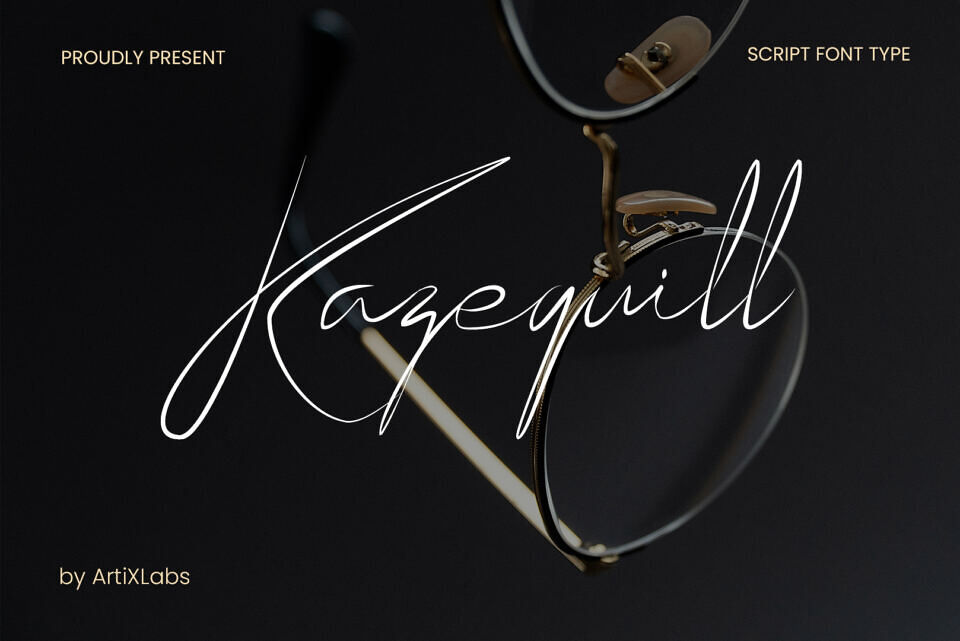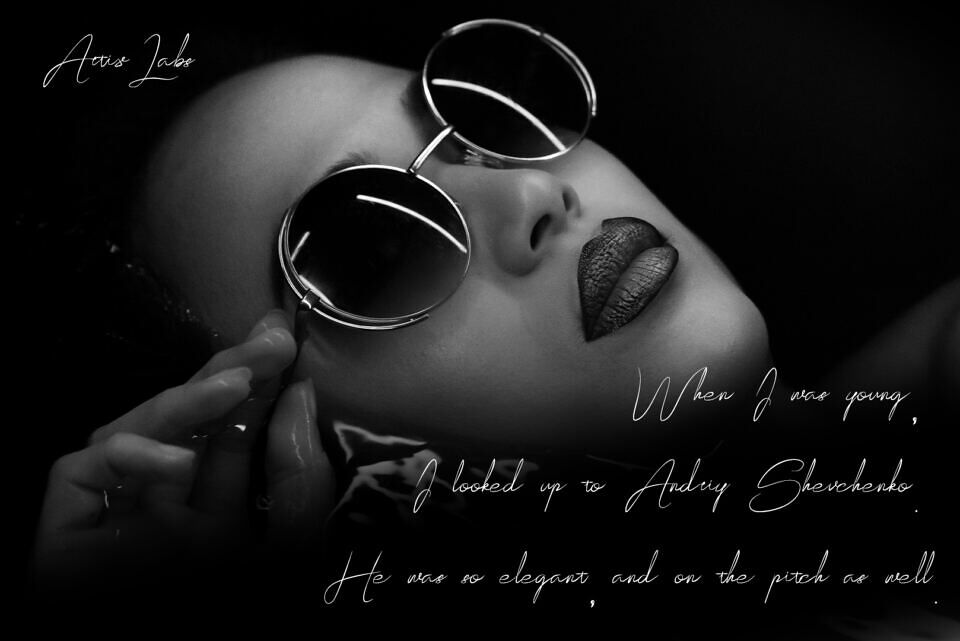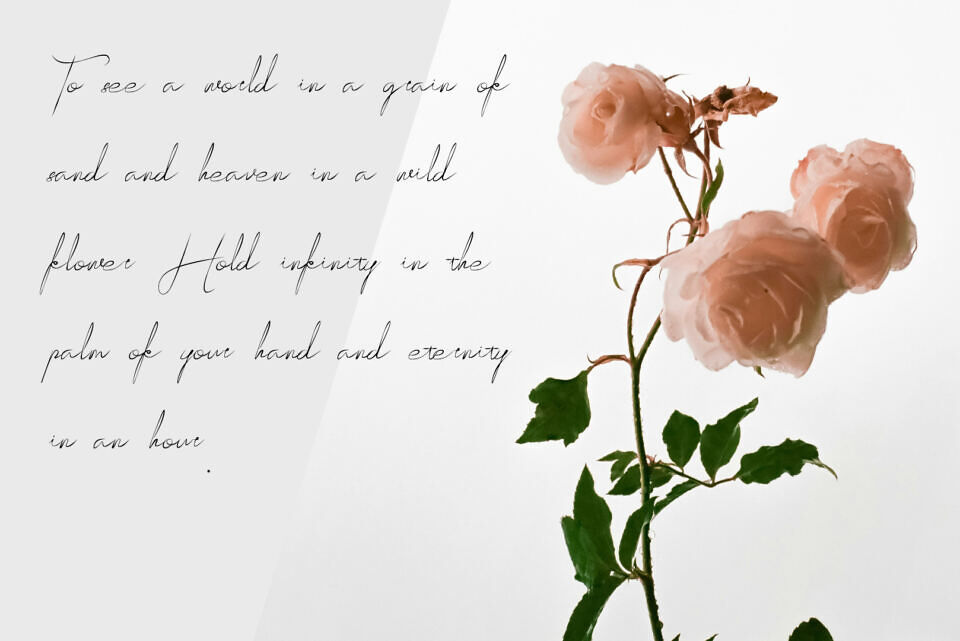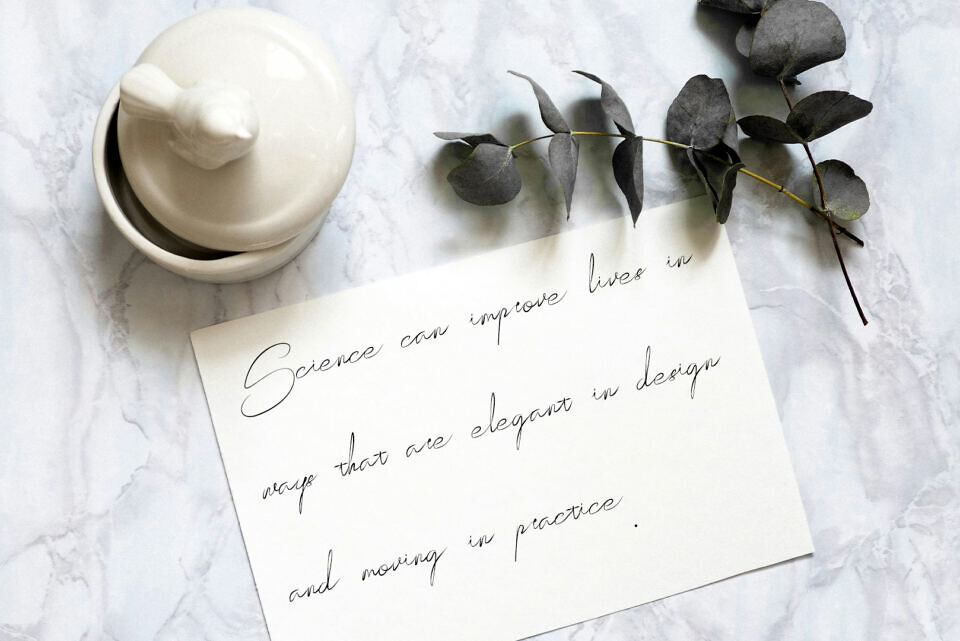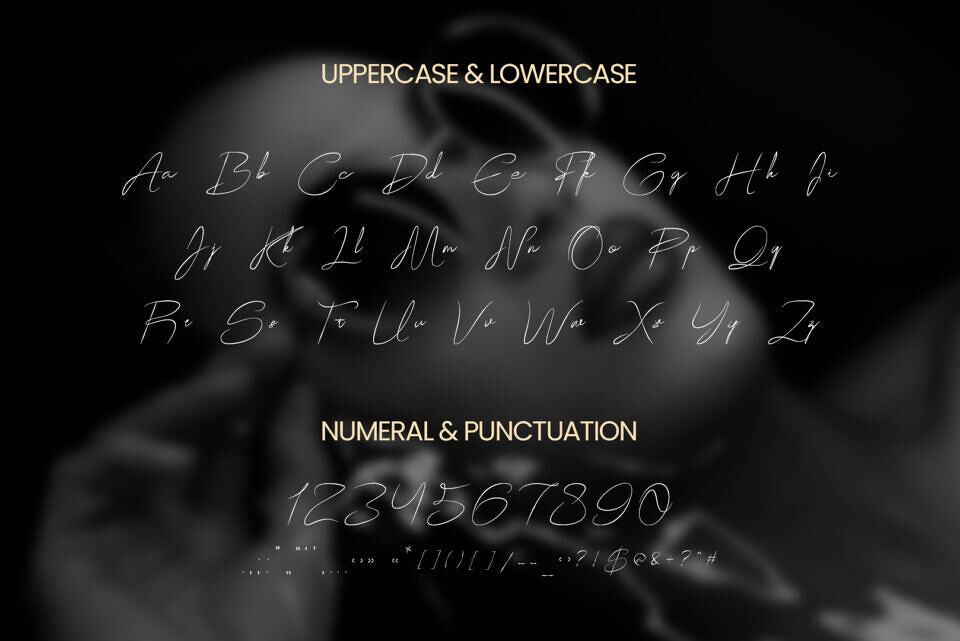
Kazequill Font
Kazequill is an elegant signature script font designed with smooth flowing strokes and refined thin lines. Inspired by modern calligraphy and luxury handwriting styles, Kazequill brings sophistication and minimal elegance to any creative project.
Perfect for wedding invitations, branding, logos, fashion editorials, packaging, social media quotes, and high-end design presentations. Kazequill is a premium script font crafted for timeless and stylish designs.